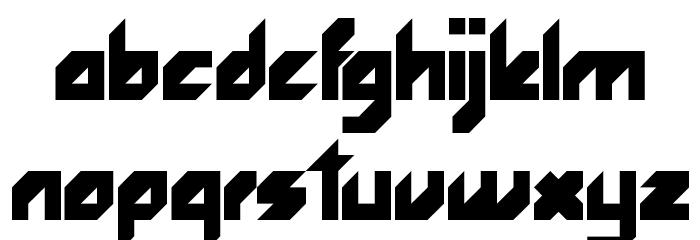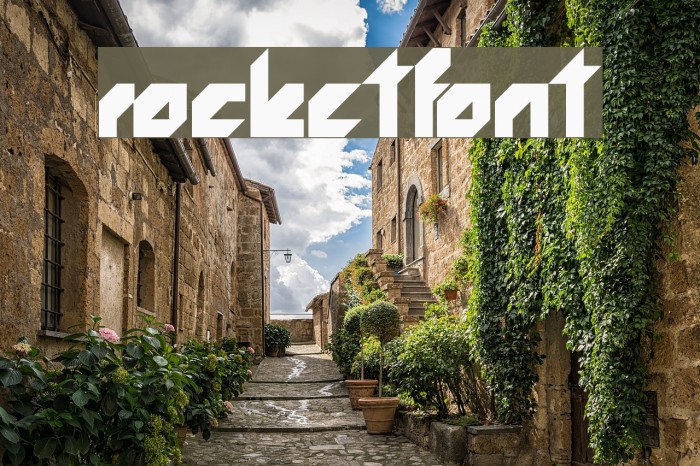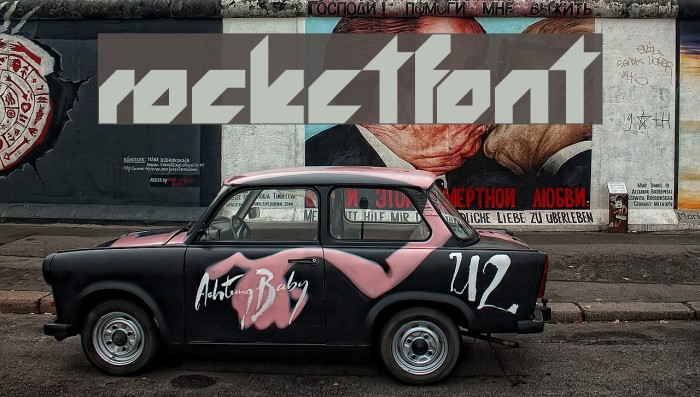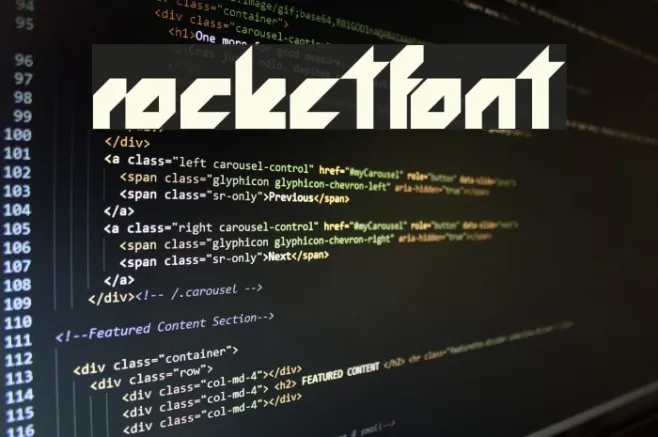
Rocketfont Font
This font features a bold and geometric style with sharp angles and a futuristic aesthetic. The characters are constructed with straight lines and pointed edges, giving it a dynamic and modern appearance. The uppercase and lowercase letters maintain a consistent design, emphasizing angularity and symmetry. Numbers and special characters follow the same geometric theme, ensuring uniformity across all glyphs. The font's distinct style makes it suitable for projects that require a strong visual impact.
A bold, geometric font with sharp angles and a futuristic look.
- Proposed Projects: Ideal for sci-fi themed designs, video game graphics, posters, and branding that requires a modern and edgy feel.
- Overall Style: Futuristic, Modern